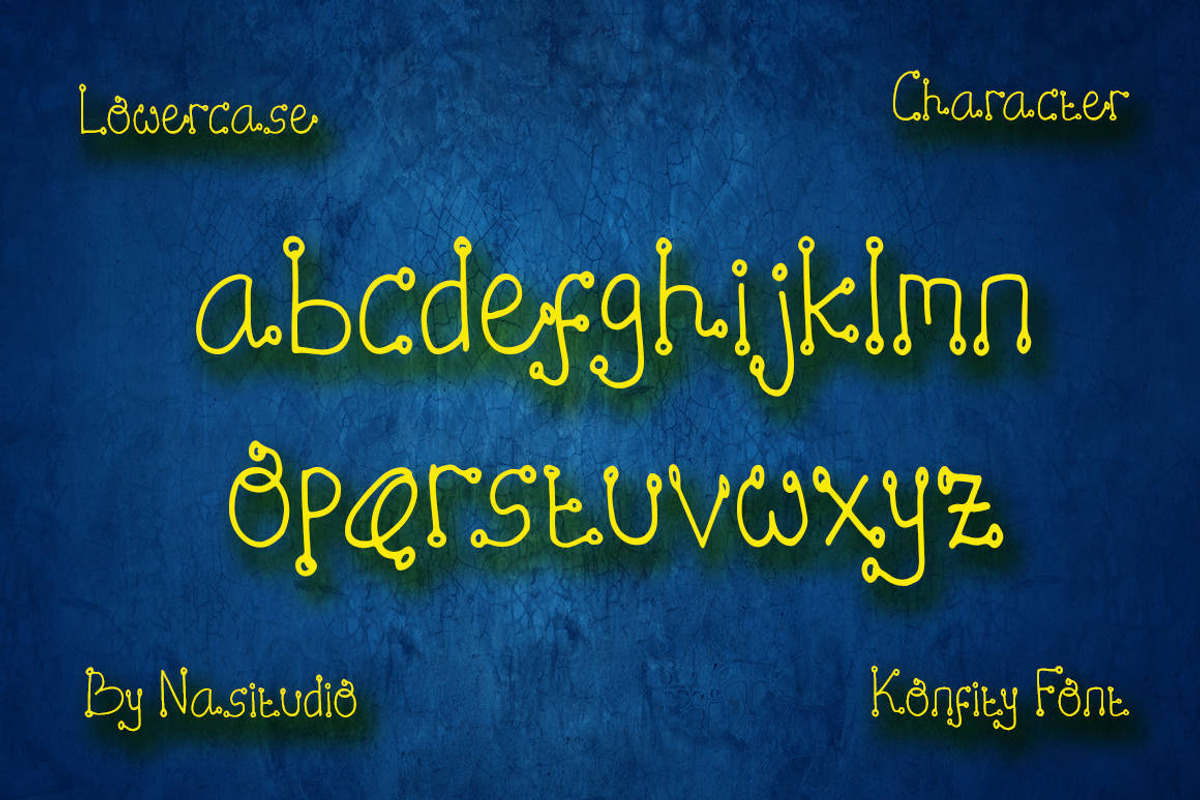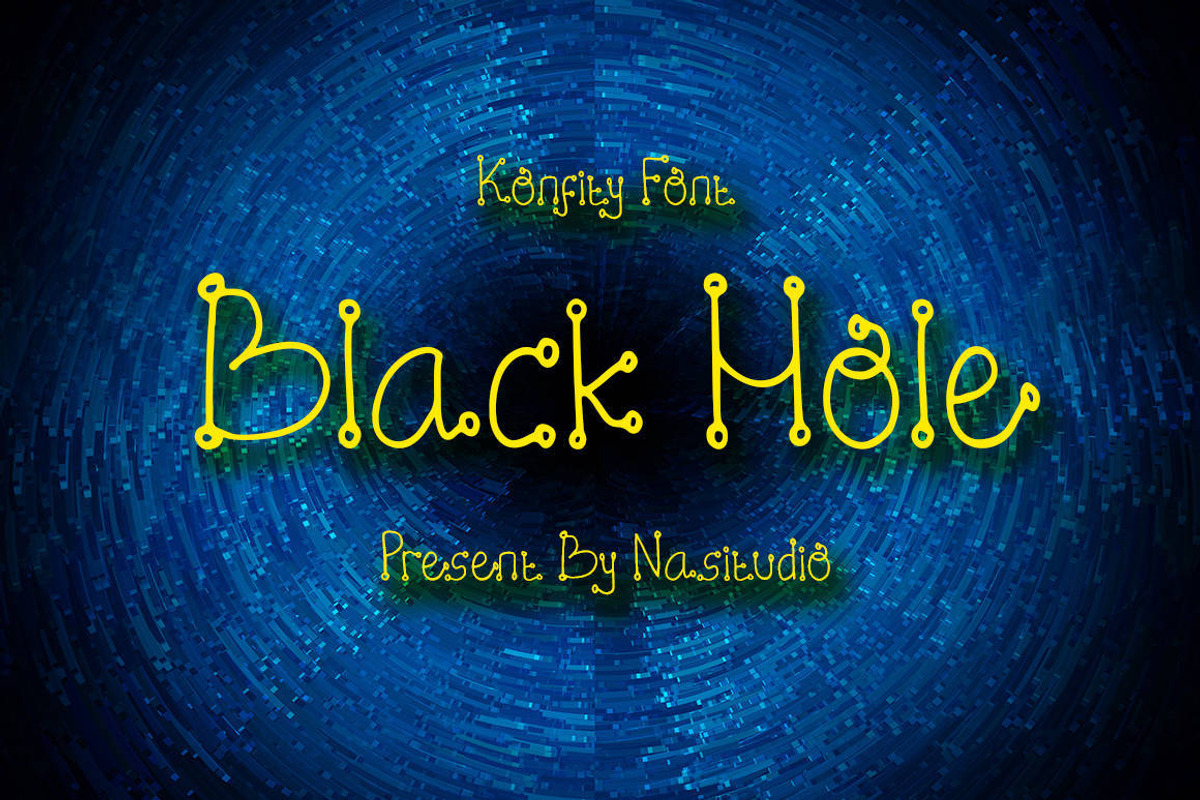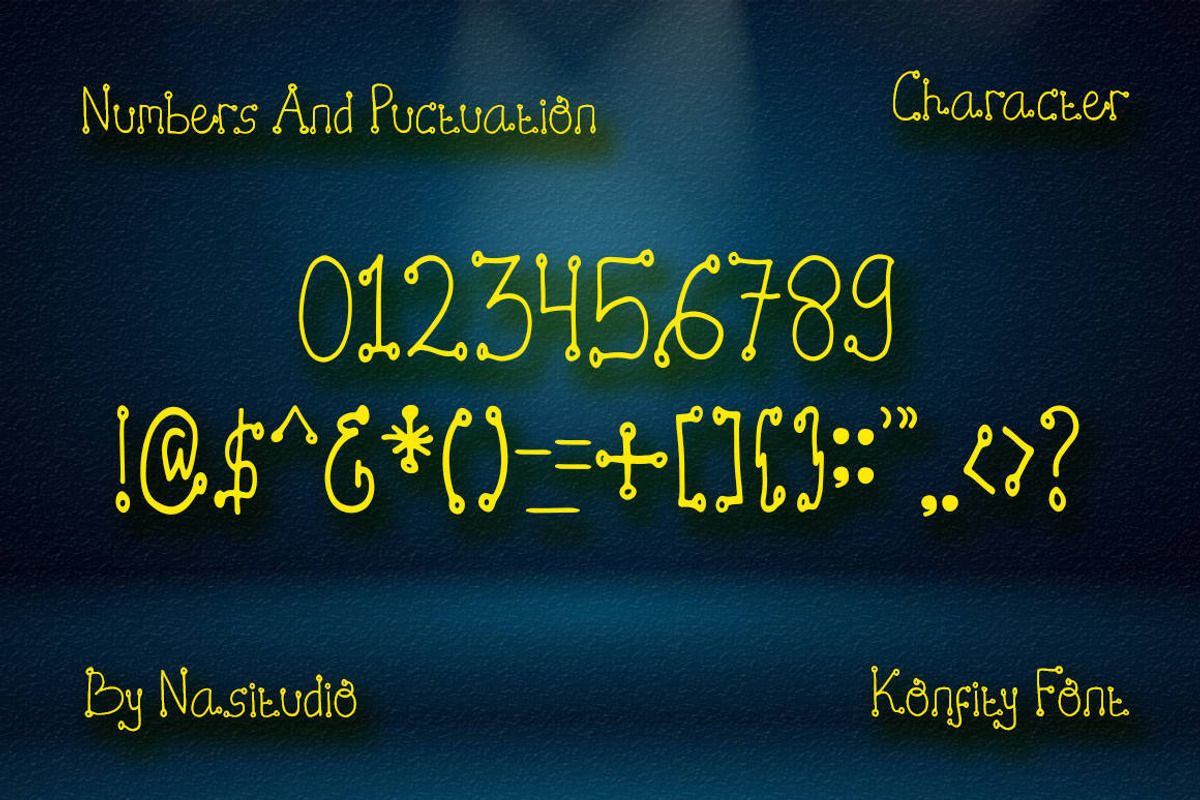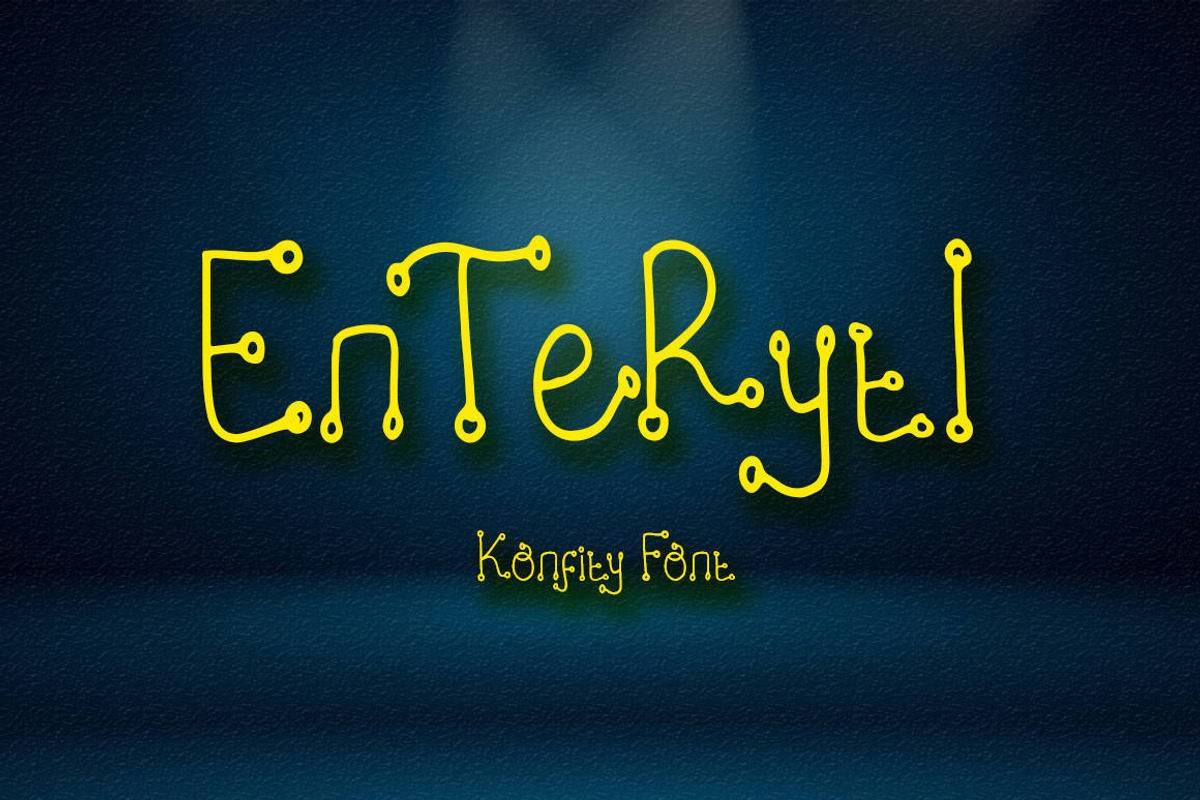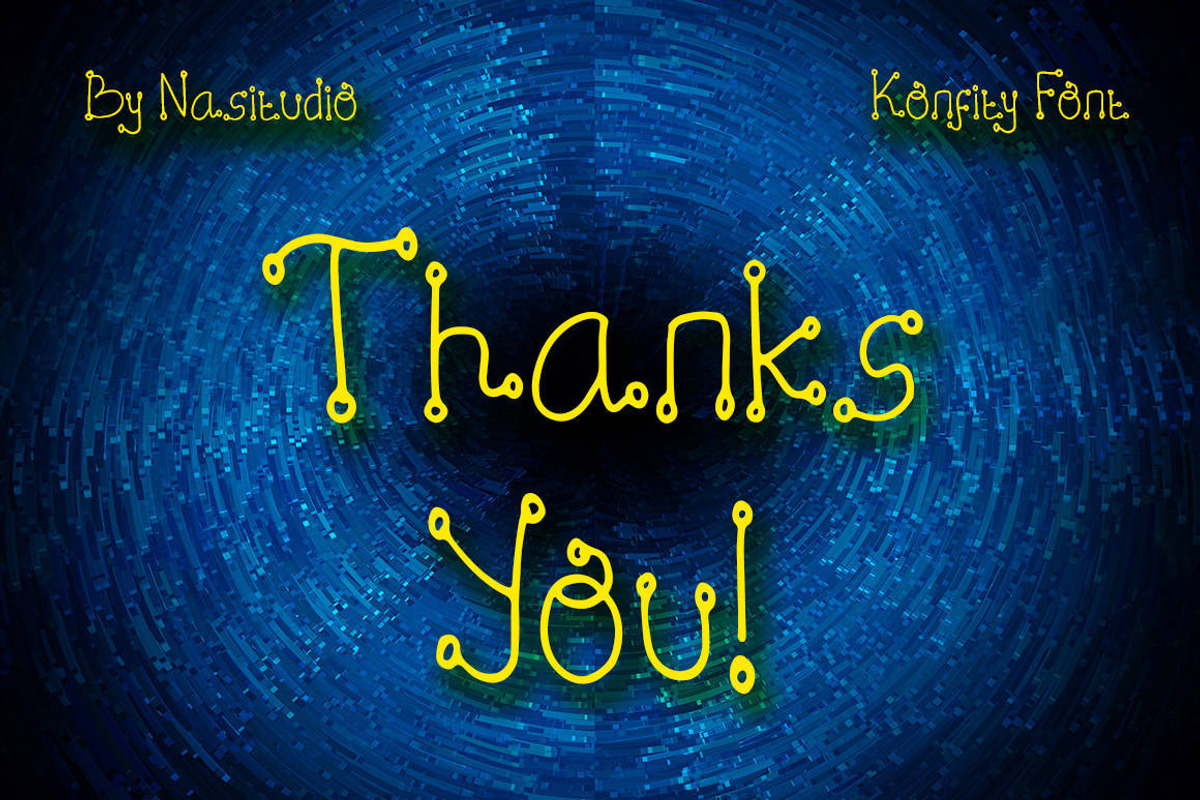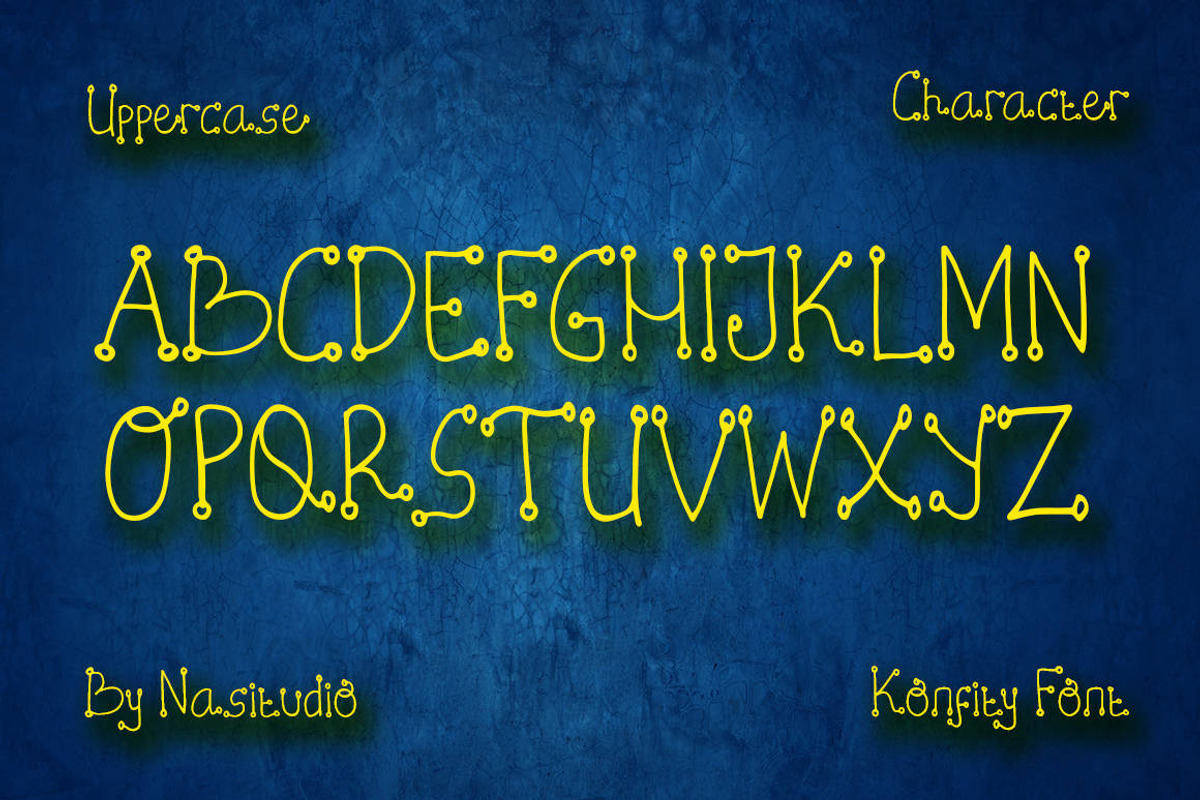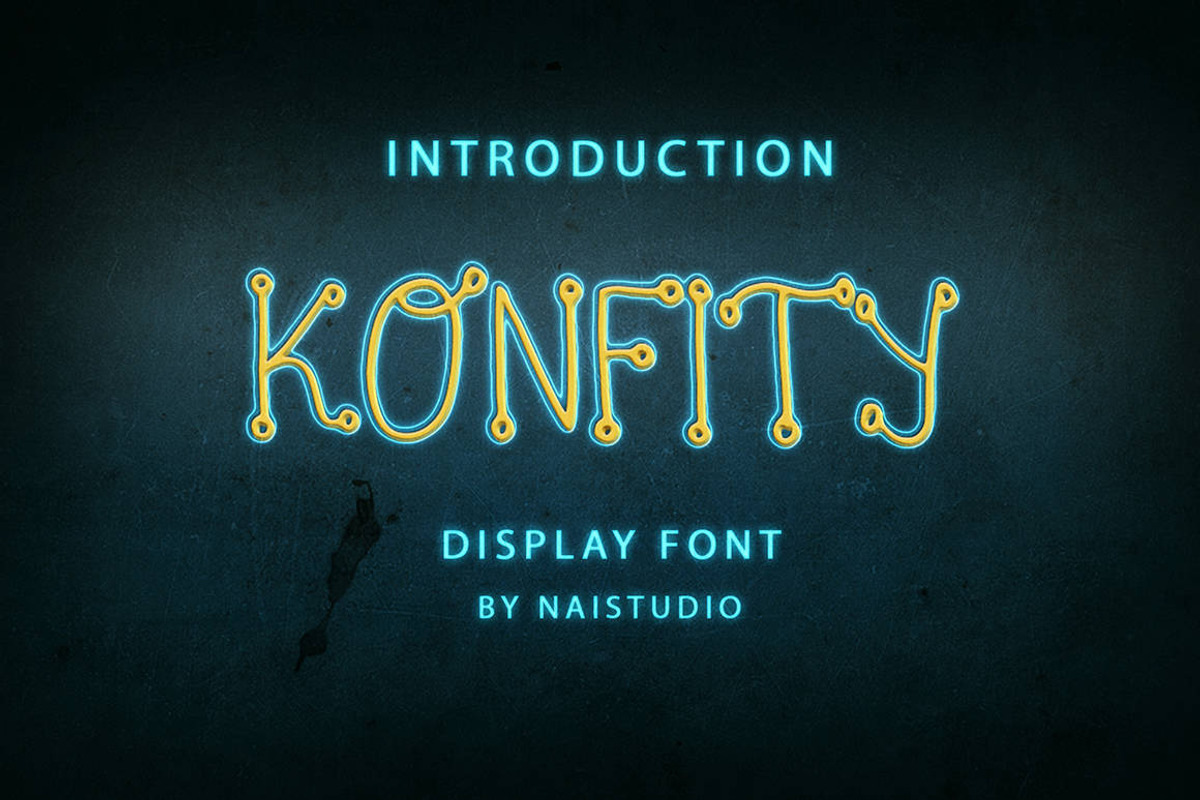
Konfity - Creative Display Font
Introducing Konfity - Creative Display Font
Konfity is a delicate, elegant and flowing handwritten font. It has beautiful and well balanced characters and as a result, it matches a wide pool of designs. Add it to your most creative ideas and notice how it makes them come alive!